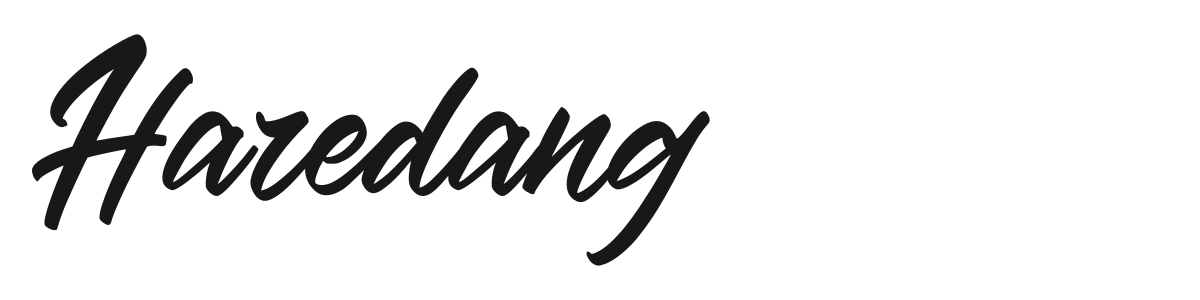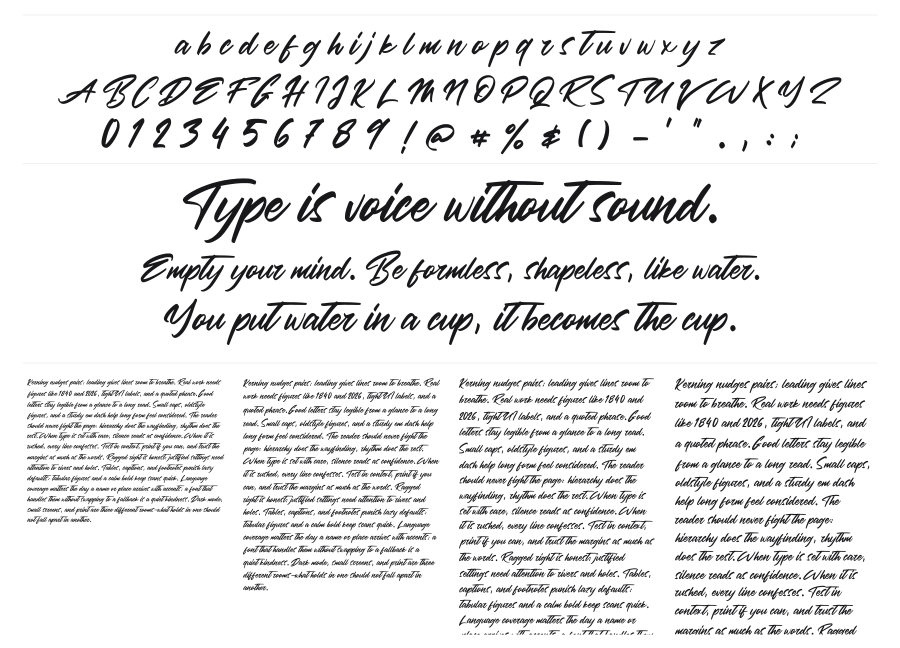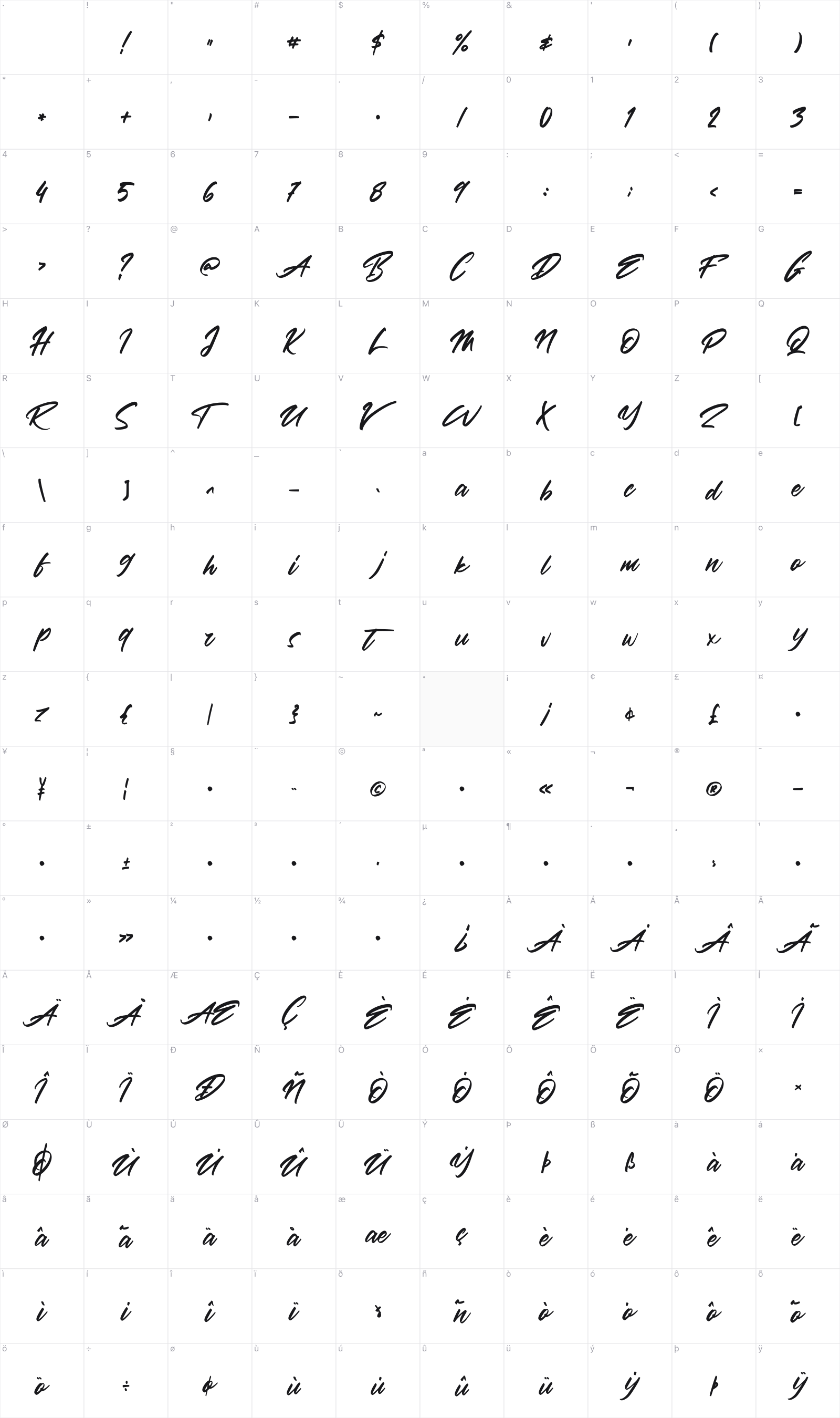
Haredang
Haredang is a bold brush script with the raw energy of a thick marker dragged fast across paper. Thick downstrokes and hairline upstrokes create strong contrast, while natural baseline variation keeps things feeling alive and unstudied. A solid choice for branding, packaging, and poster work where handcrafted authenticity matters.